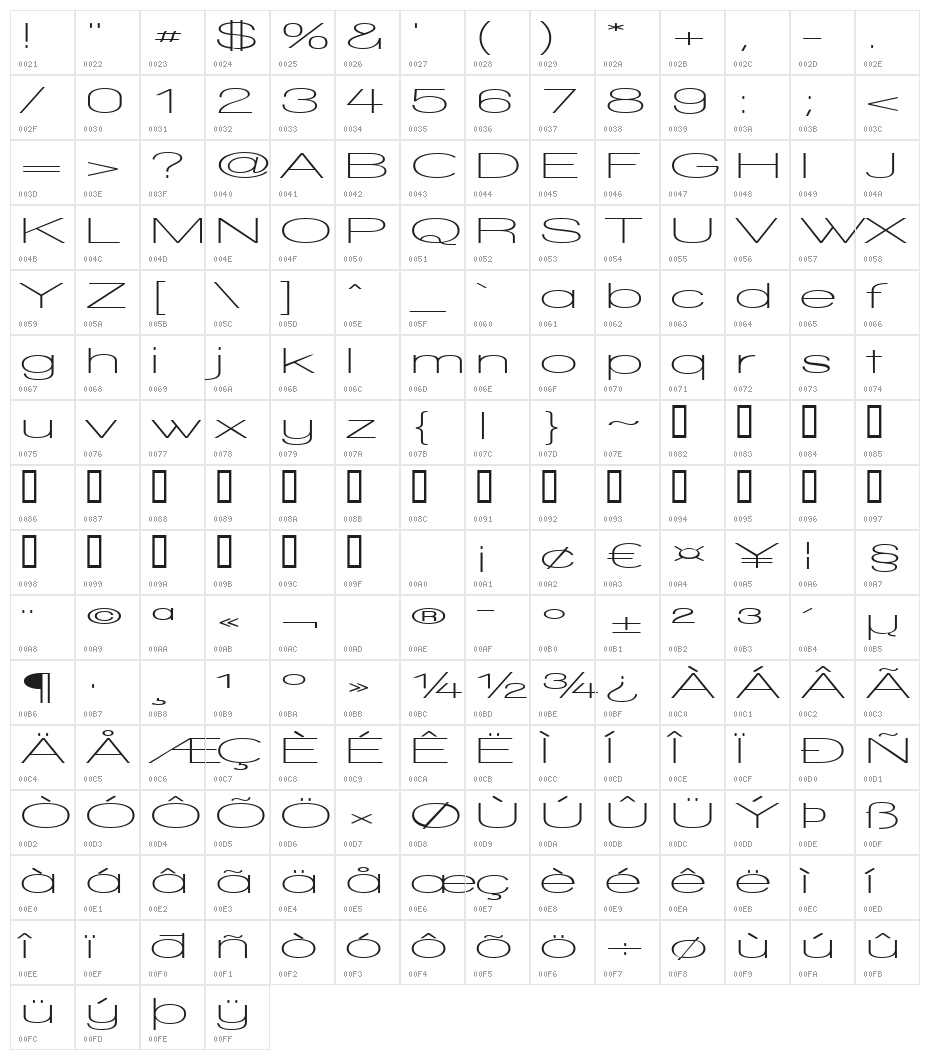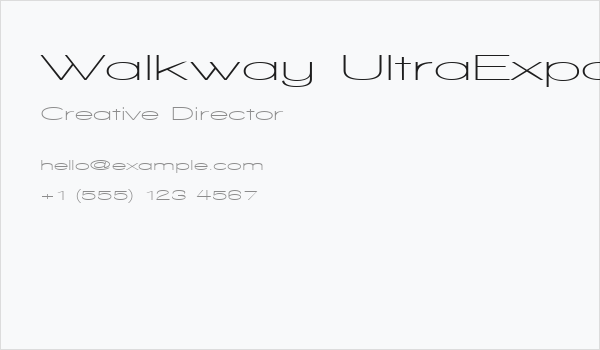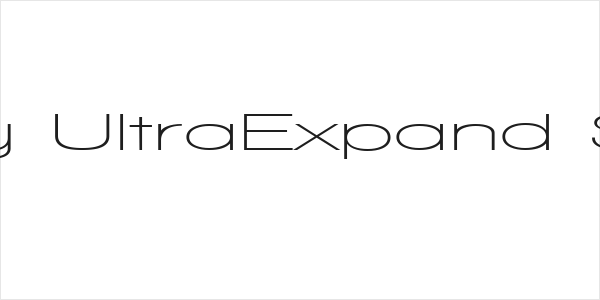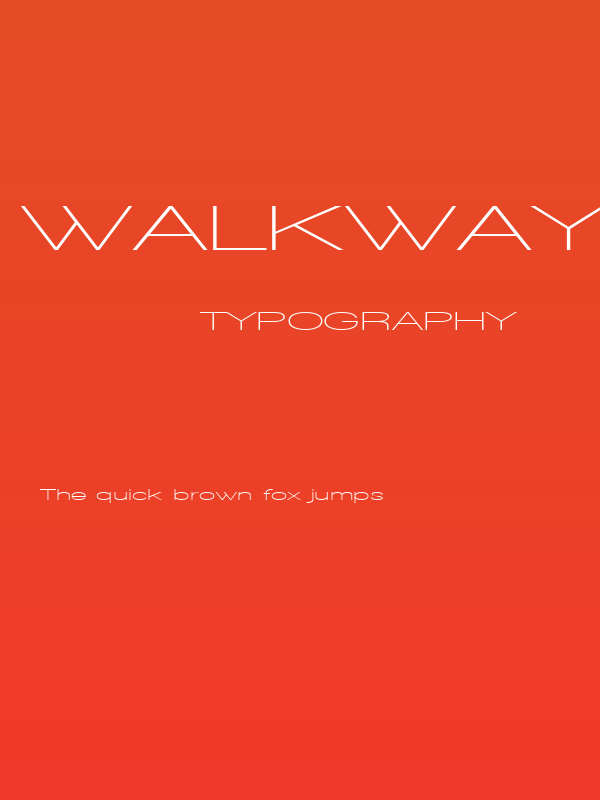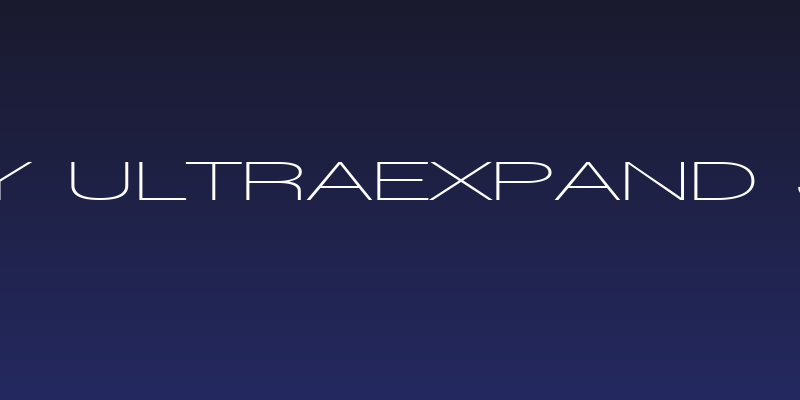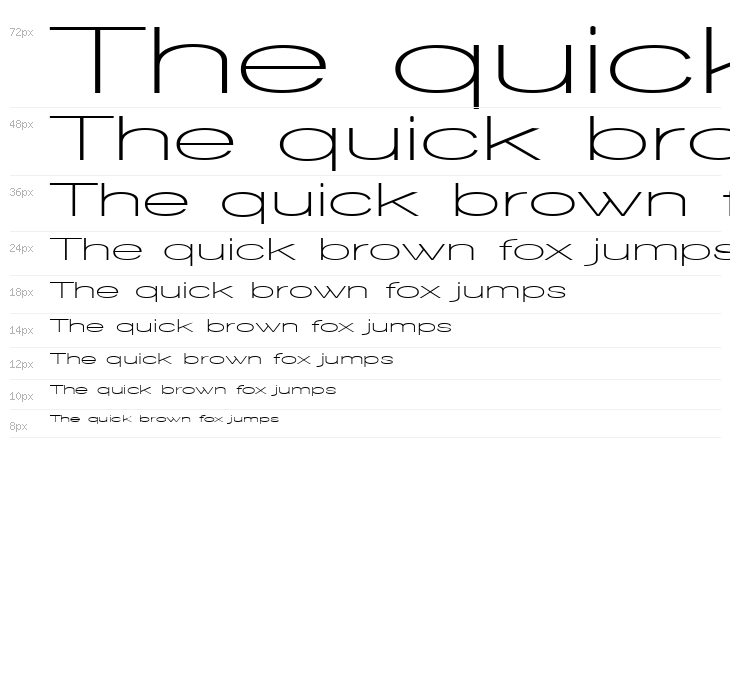
Walkway UltraExpand SemiBold Font
Walkway UltraExpand SemiBold Description
This font features a sleek, ultra-expanded design with semi-bold weight, offering a modern and sophisticated look. The characters are clean and geometric, with a uniform stroke width that provides a balanced and harmonious appearance. The uppercase letters are tall and elegant, while the lowercase letters maintain a consistent style that complements the overall design. The numerals and special characters are crafted with the same attention to detail, ensuring readability and aesthetic appeal. This font's expansive width and semi-bold weight make it ideal for creating impactful headlines and titles.